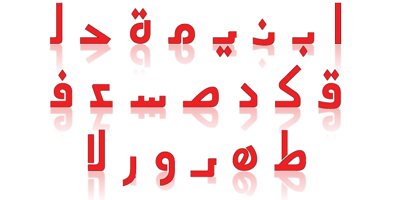
Whitenights Free Download
The Whitenights Font is an excellent choice for designs that aim for a clean, modern, and often elegant aesthetic, reminiscent of fresh starts or pristine environments. Imagine it gracing the branding of a minimalist skincare line, bringing a crisp and sophisticated feel to a contemporary art gallery's catalog, or enhancing the serene ambiance of a wellness retreat's website. It's also perfectly suited for sleek corporate communications, high-end invitations, editorial layouts for modern publications, and any project where you want to convey a sense of purity, clarity, and understated luxury. Its often crisp lines, balanced proportions, and clear forms make it ideal for conveying transparency and a refined, contemporary appeal.
What makes the Whitenights Font so exciting is its remarkable blend of simplicity and distinctive elegance. It frequently features subtle design elements or unique curves that give it a memorable personality without compromising legibility or versatility. This font has an intelligent and sophisticated presence that can instantly elevate your design, making it feel both modern and remarkably timeless. It’s designed to provide excellent readability in various applications, ensuring your message is not just seen, but effortlessly absorbed with a sense of refined style.
The Whitenights Font family typically includes a range of weights, from a delicate light for subtle accents to a robust bold for impactful statements, often accompanied by matching italic versions. This comprehensive range provides designers with ample flexibility to create nuanced visual hierarchies and add dynamic contrast within their typography. With its broad character set, it supports multiple languages, further expanding its global applicability for various contemporary design projects. Discover the sophisticated clarity of Whitenights Font Free Download for your next creative endeavor.